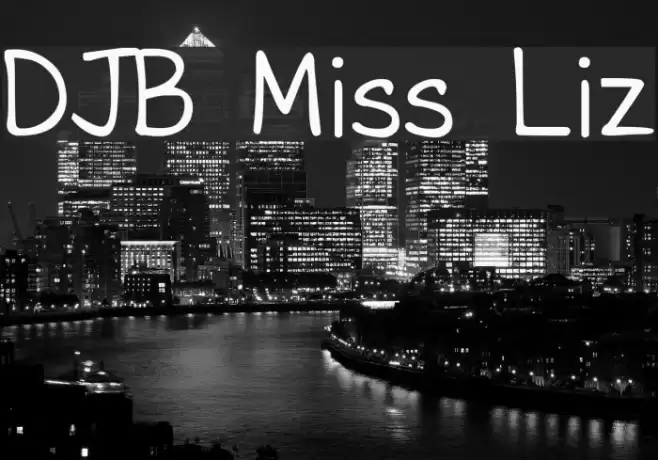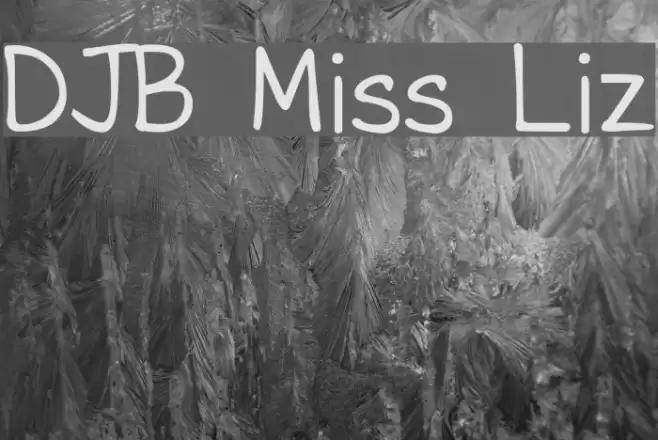
DJB Miss Liz Font
DJB Miss Liz Description
This playful and casual handwritten font features a smooth, rounded style with a friendly and approachable appearance. The characters are slightly irregular, adding a personal touch that mimics natural handwriting. The uppercase letters are bold and consistent, while the lowercase letters maintain a whimsical flow. Numbers and special characters are crafted with the same playful essence, making them suitable for informal and creative projects. The overall design is clean and legible, ensuring readability while maintaining a unique charm.
A playful, casual handwritten font with a smooth, rounded style from Uncategorized fonts.
- Proposed Projects: Ideal for greeting cards, children's books, personal branding, and creative social media graphics.
- Overall Style: Casual, Playful
- Use Case: Headlines, Informal Text, Creative Projects